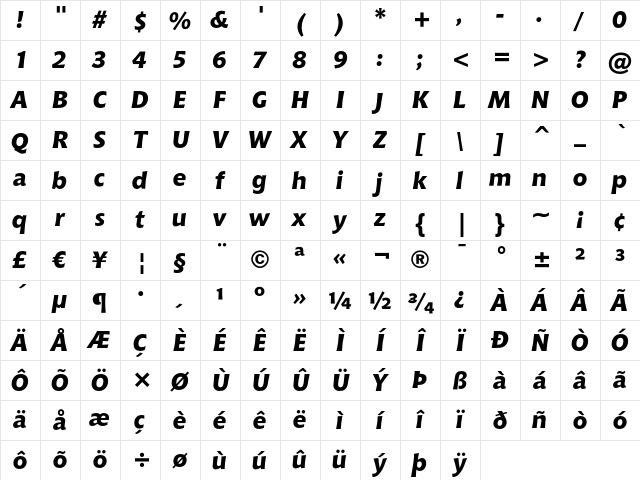
Bitstream Chianti Extra Bold Italic
Style: Extra Bold Italic
Bitstream Chianti Family
Bitstream Chianti Extra Bold Italic
Complete Bitstream Chianti Extra Bold Italic glyph index. Displaying only characters natively supported by Bitstream Chianti Extra Bold Italic font.
Design Context for Bitstream Chianti
Bitstream Chianti is a composed and adaptable typeface that performs quietly and consistently across a wide range of design contexts. The slanted form adds forward momentum and visual energy. Its bold stroke weight gives it real presence on the page.